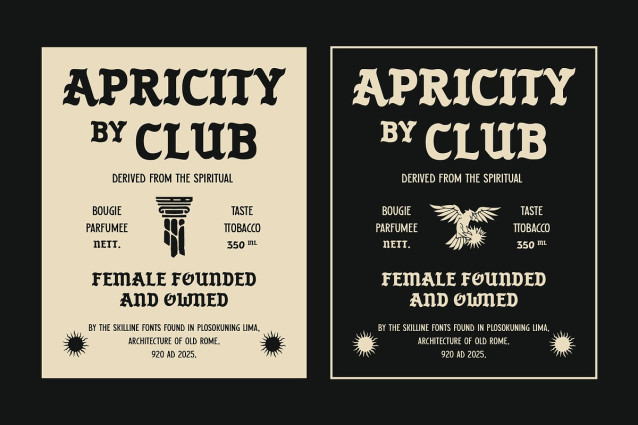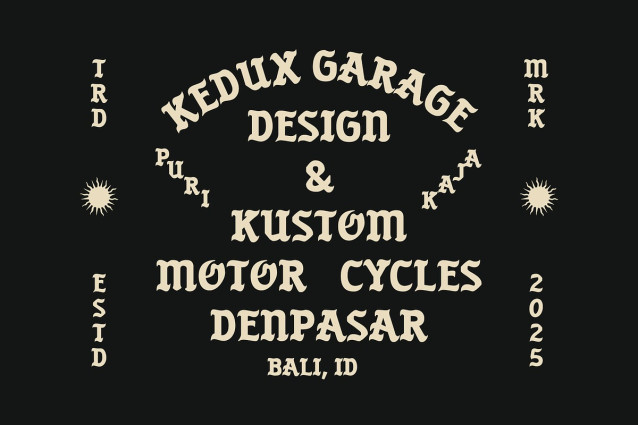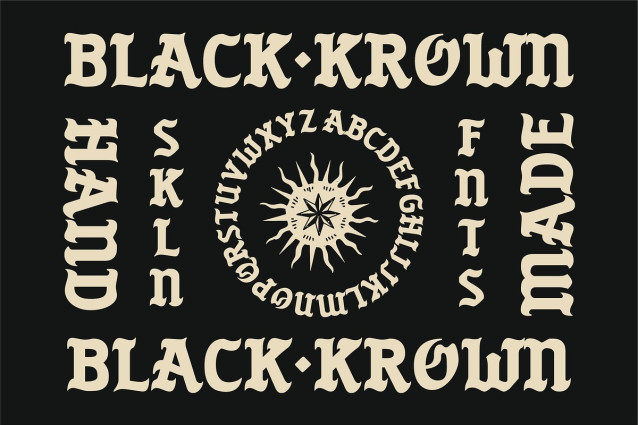
SFC Black Krown Font
SFC Black Krown Font is a bold handcrafted medieval display typeface inspired by old-world lettering, gothic sign painting, and Javanese artisan motifs. Its sculpted curves, irregular edges, and mystical ornamental personality give every word a sense of rebellion and heritage. Designed for creators who want a striking, ceremonial, and fierce aesthetic, Black Krown brings a unique blend of tribal energy and medieval boldness perfect for logos, apparel, band merchandise, tattoo-inspired graphics, editorial titles, and anything that needs a raw, handcrafted soul.